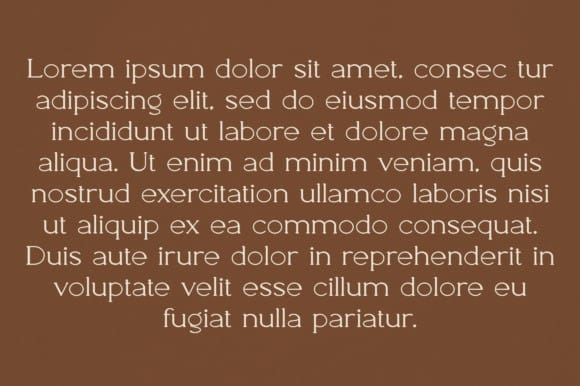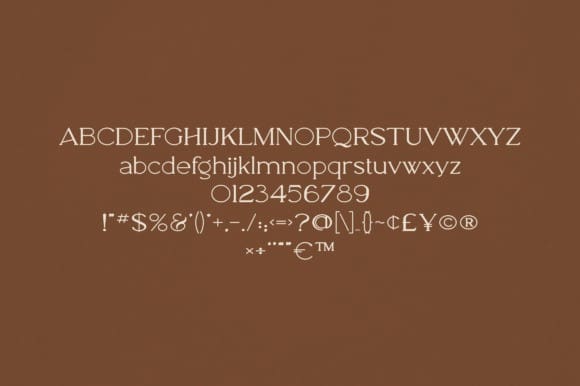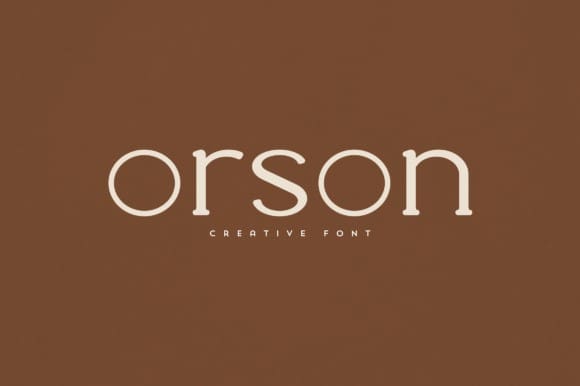
Orson Font
Orson Font is an elegant and versatile font that will make your typography truly unique! It will enchant every logo, branding, headline, or plain text!